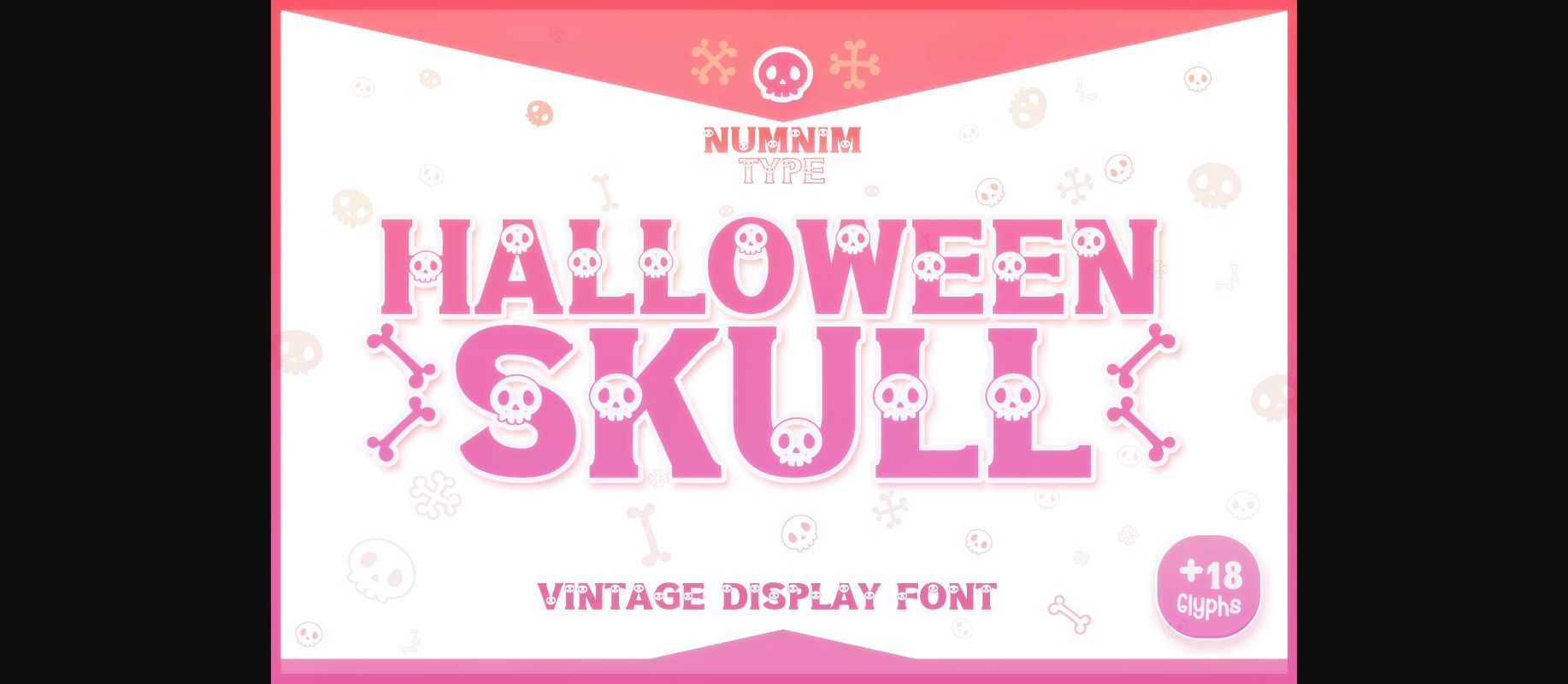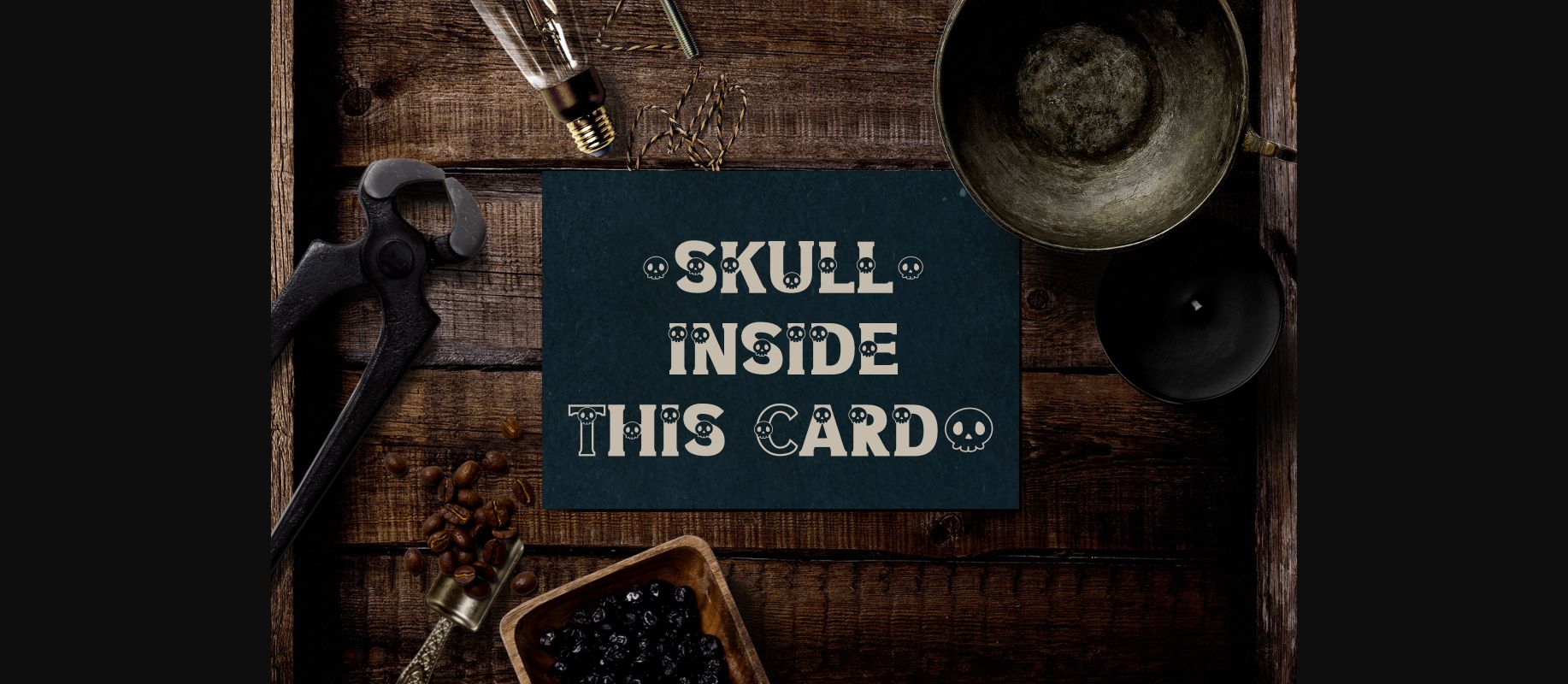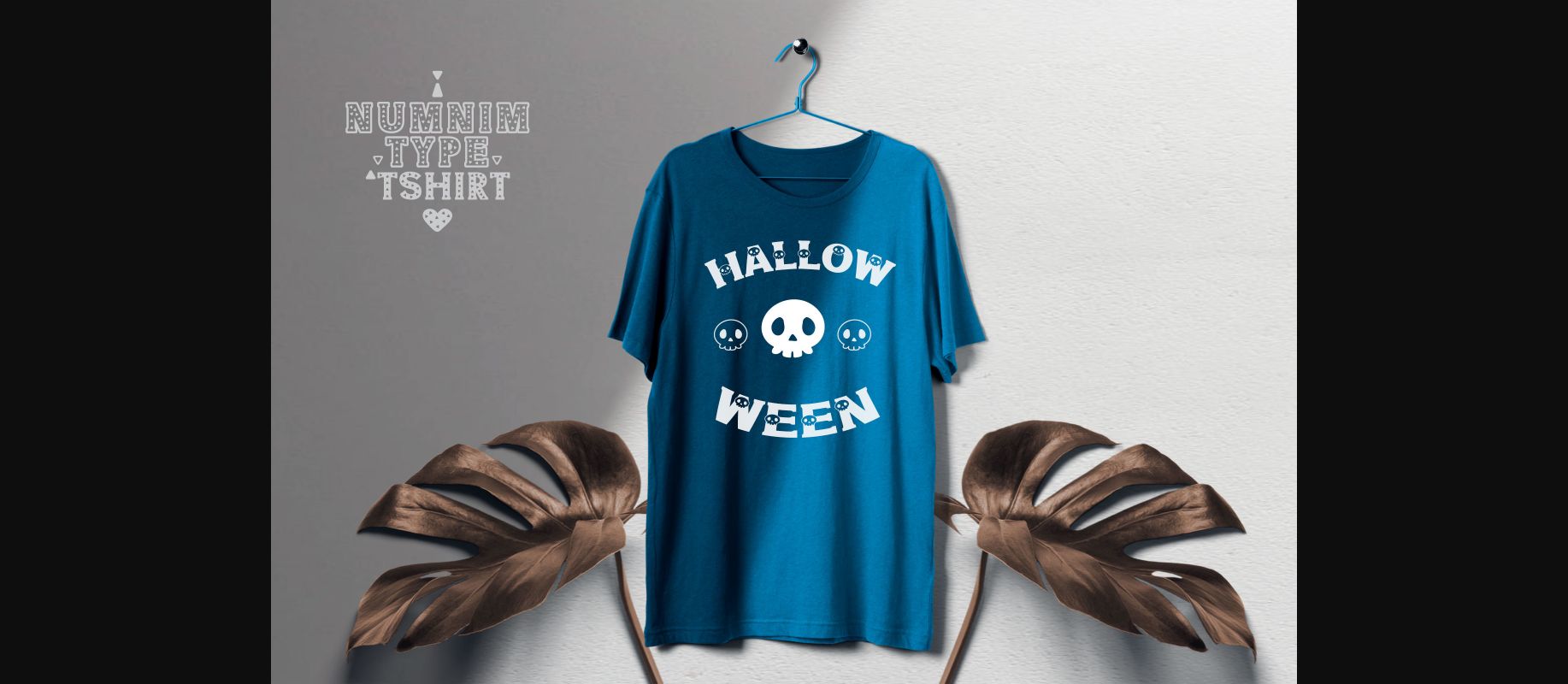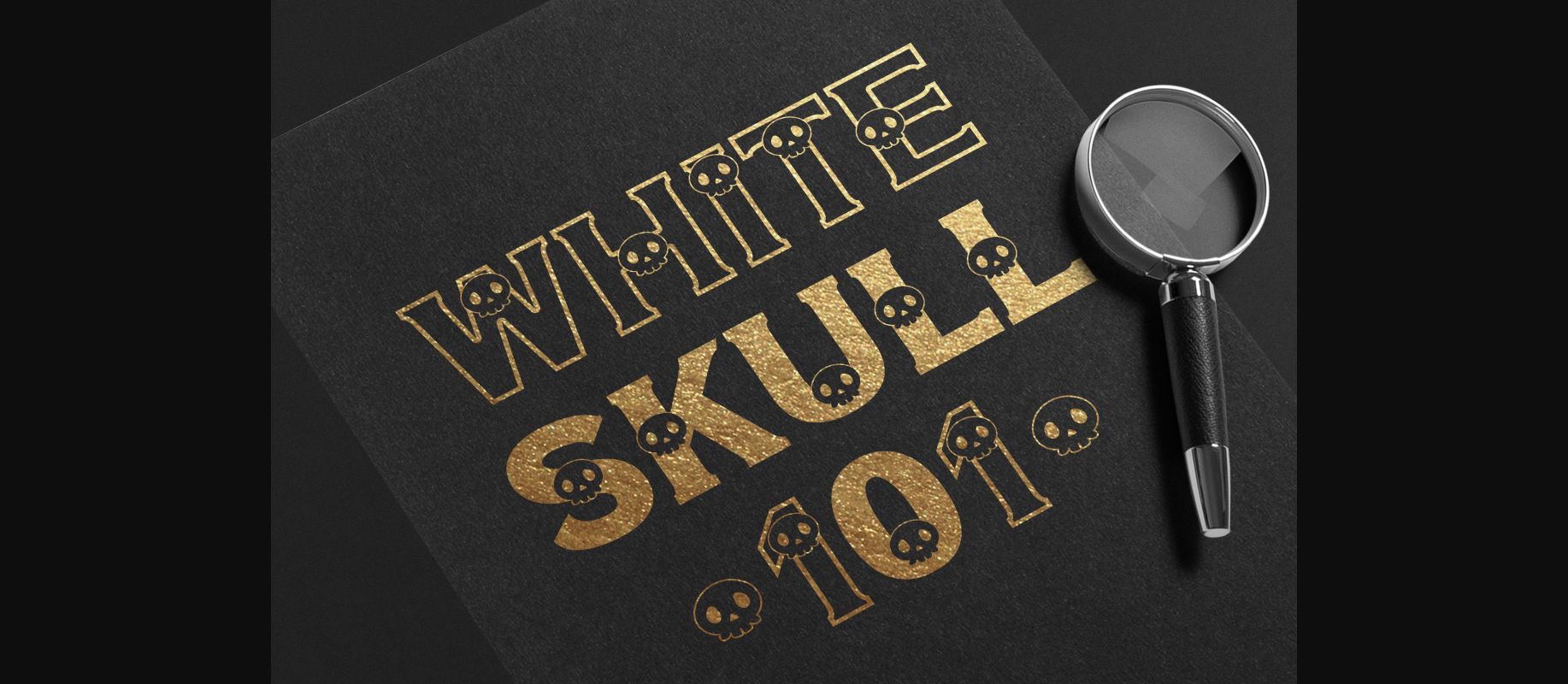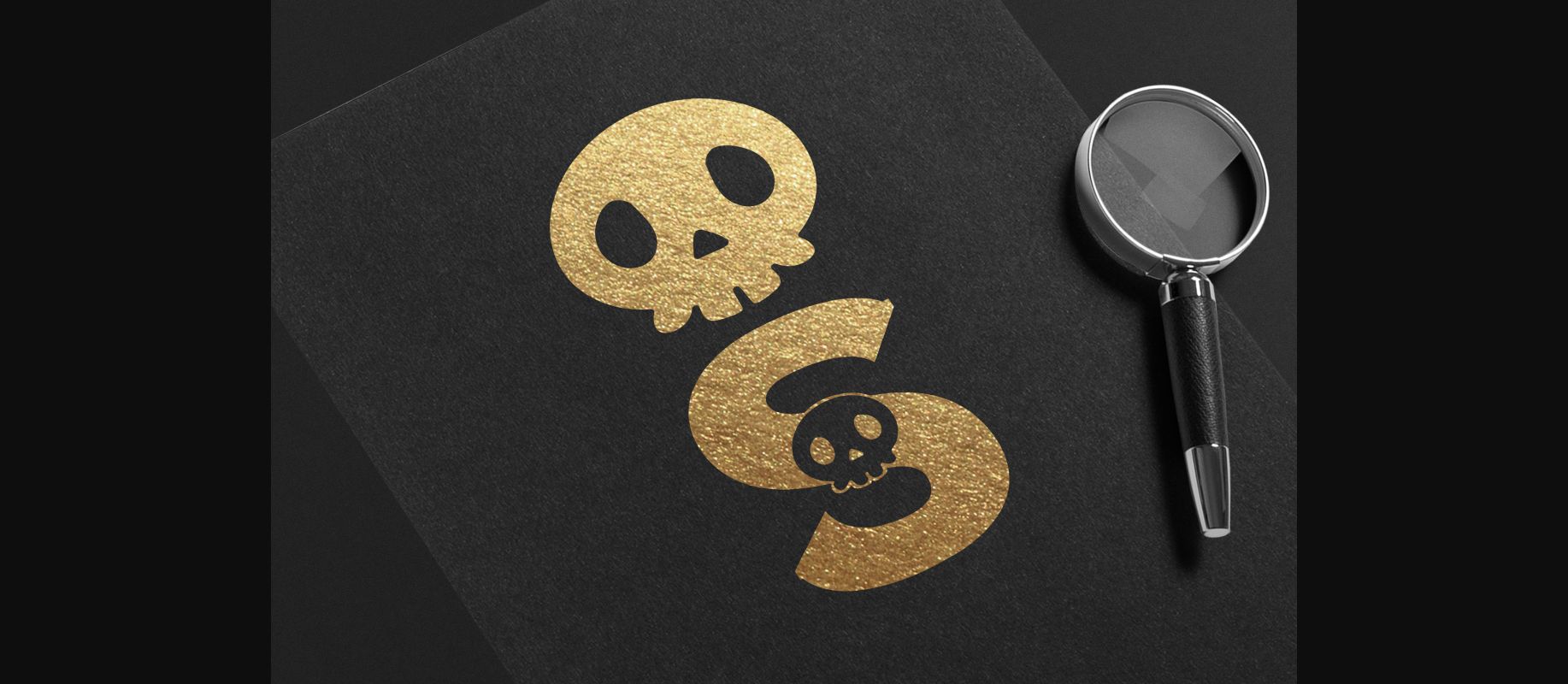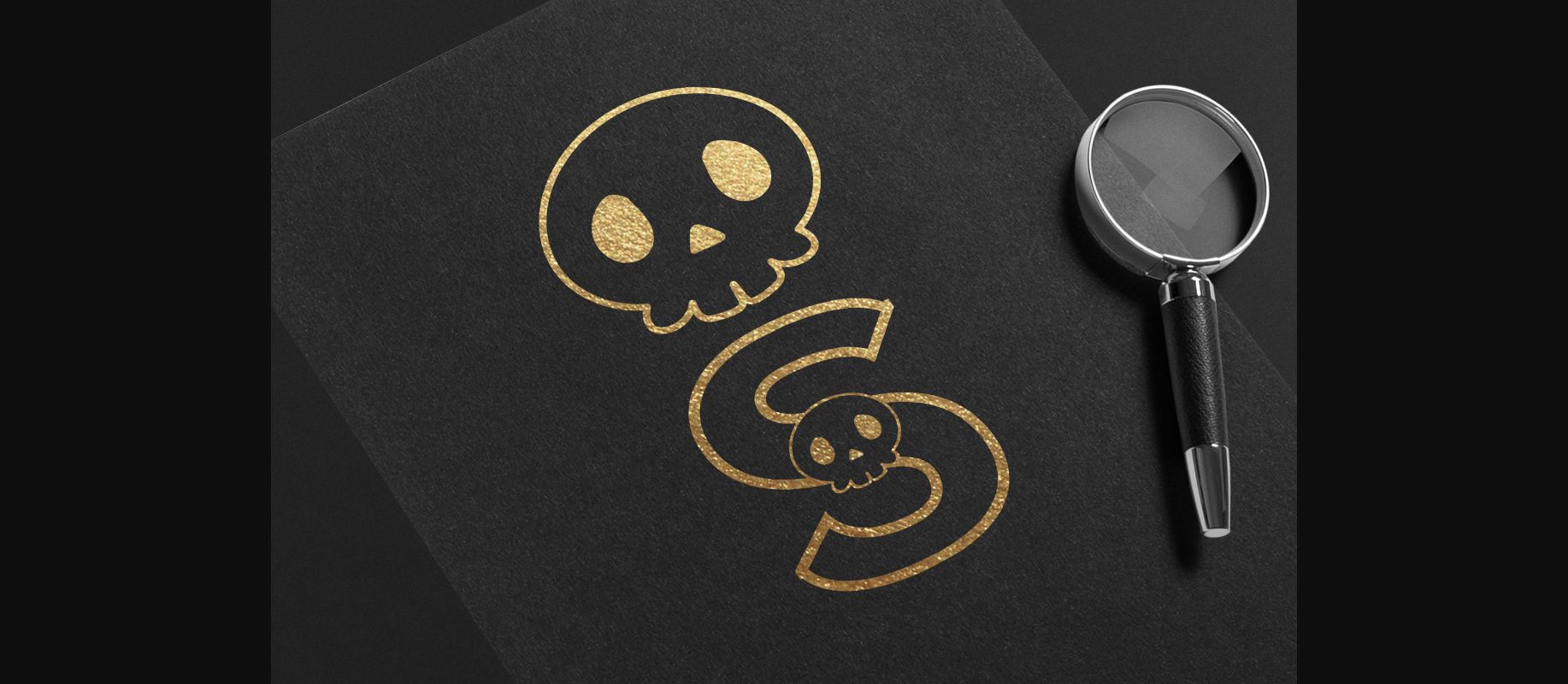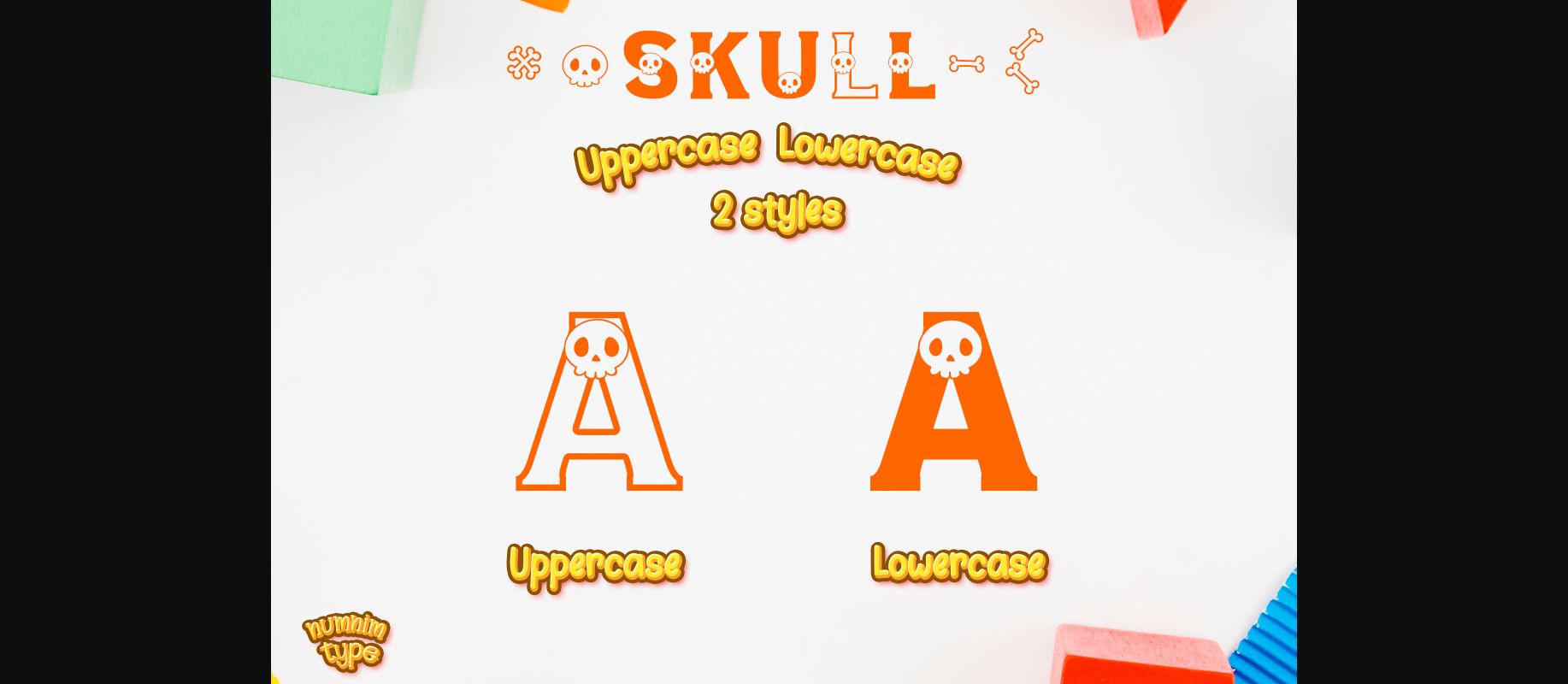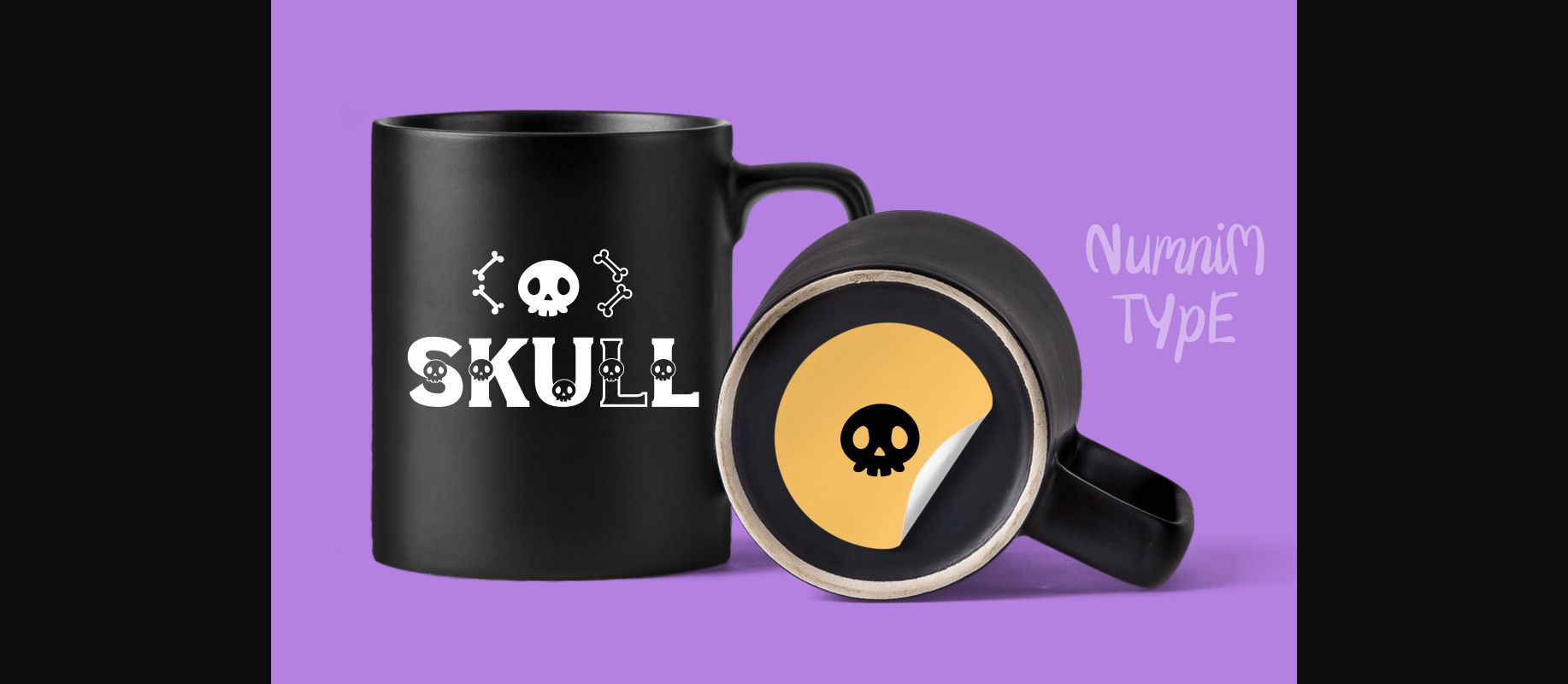
Halloween Skull Font
About Halloween Skull Font
Halloween Skull is a cool and scary looking decorative font. This font is PUA encoded which means you can access all glyphs and swashes with ease!